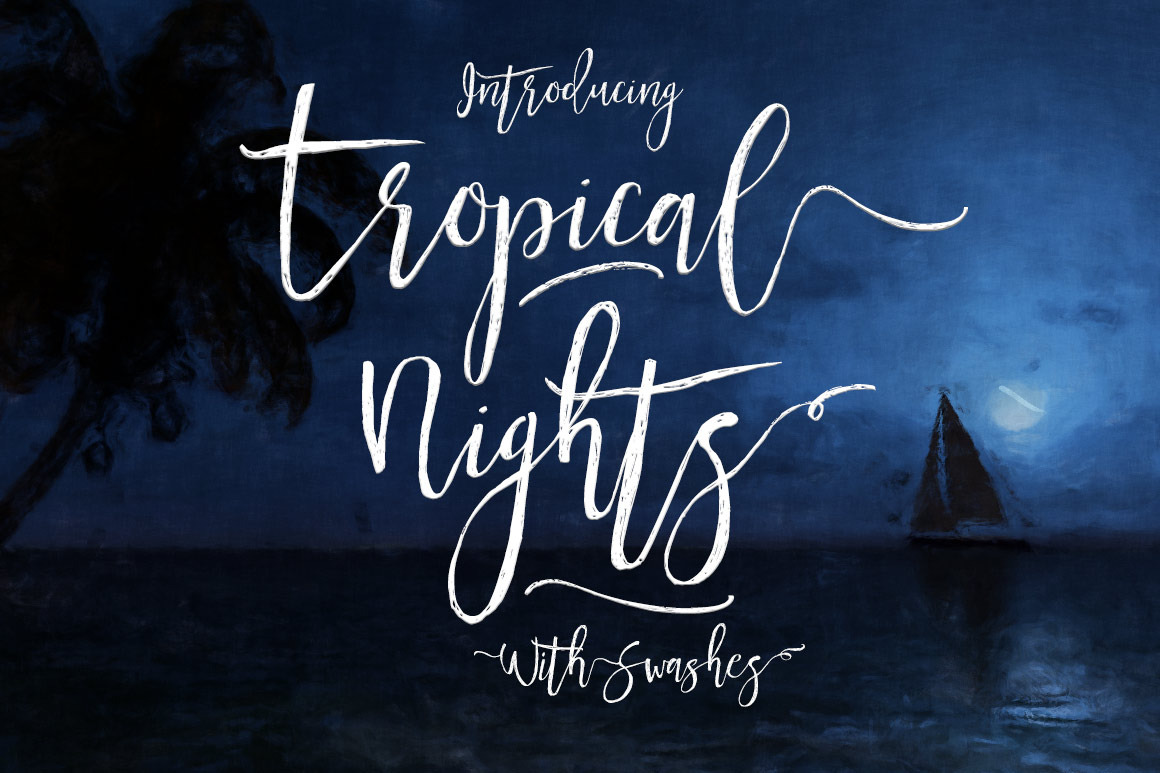
Tropical Nights Script Font
Introducing the latest and greatest font from Creativeqube - Tropical Nights script font
Tropical nights is a scribbly hand drawn script font with loads of character. It comes in regular (which has awesome hand drawn scribbly texture) and Bold, which still has the wobbly edges but has solid fill and is heavier and darker.
There is also alternates, and of course initial and terminal swashes and dashes!